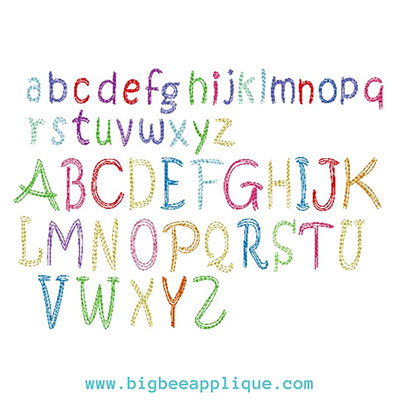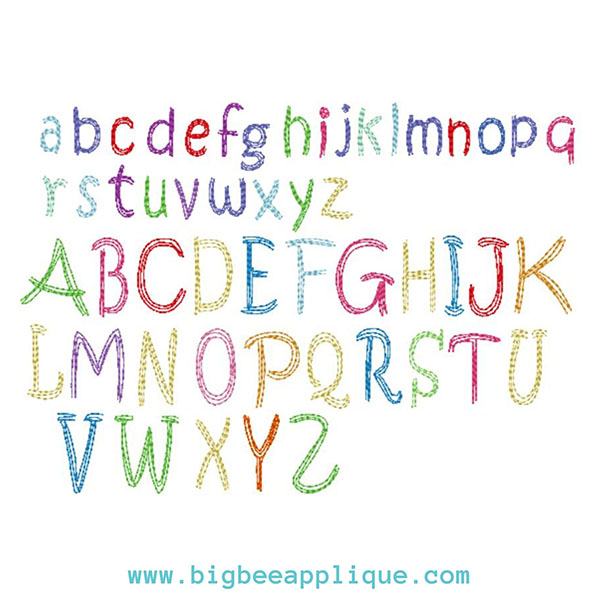
Scribble Embroidery Font Set in Uppercase and Lowercase Letters
Scribble machine embroidery font a cute and whimsy bean stitch font in that includes uppercase and lowercase letters, and comes in sizes